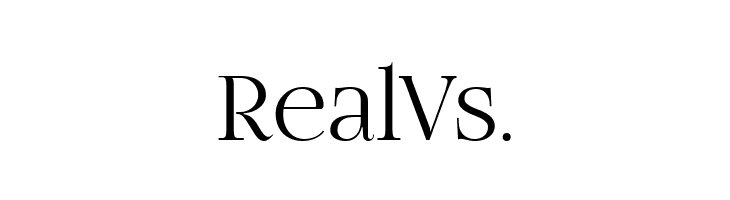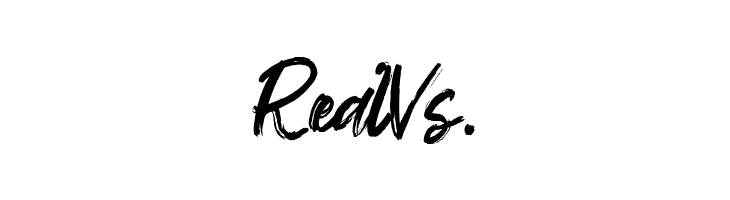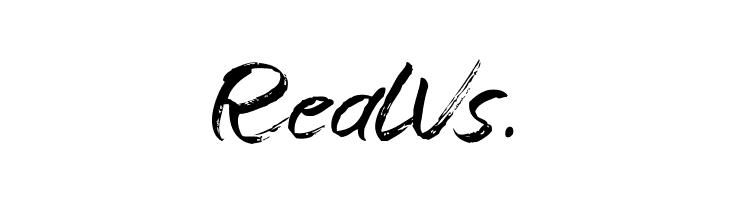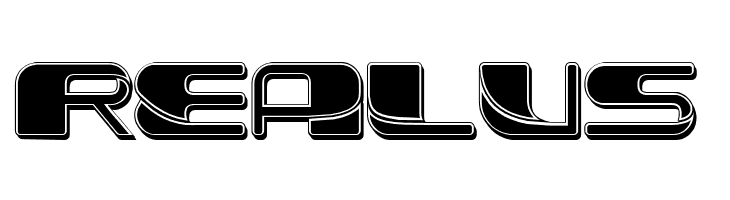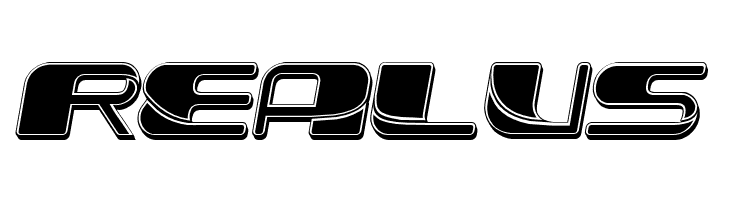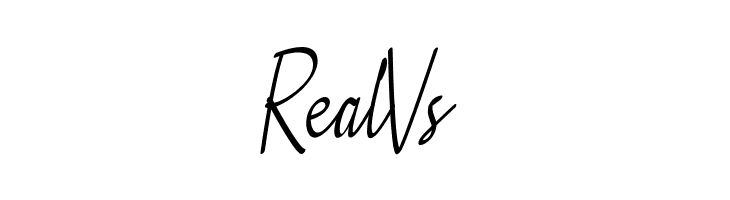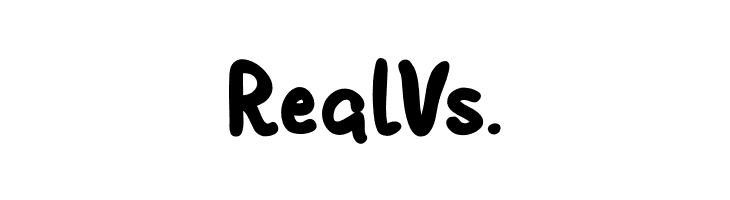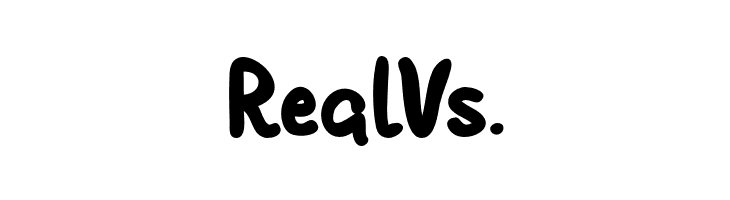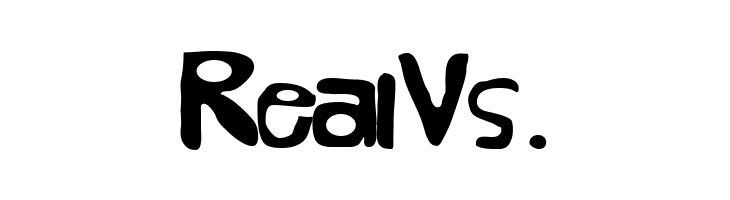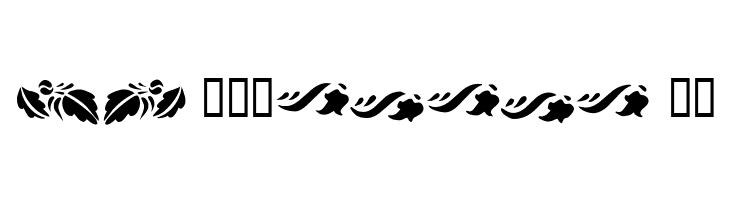
• FogtwoNo5
A refined serif font with high contrast and elegant curves.
• FogtwoNo5
• Folk Art
• Folk Art 2
• Folk Art Dividers
• Folköl
• Fombre
A bold, brush-style handwritten font with a lively and informal appearance.
• Fontabenka
An artistic font with sharp, angular strokes and dynamic flow, resembling calligraphic brushwork.
• FontCo Designs 1
• FontCo Designs 2
• FontCo Fences
• FontCo Flares
• Fontie
A playful, handwritten font with a casual and creative style.
• Fontix
A bold, brush-like font with an expressive, hand-painted style.
• Fontrue
A bold, brush-style font with dynamic, hand-painted strokes.
• Fontself
A playful, bold font with rounded edges and a hand-drawn style.
• Fontself
A bold, playful font with rounded, thick strokes and a whimsical style.
• FontselfRegular
A playful, bold handwritten font with smooth, rounded letterforms.
• Fonty_McFonterson
• Fonzella
An elegant, flowing script font with smooth, continuous strokes.
• Fopi Rush
A bold, dynamic font with angular cuts and a sense of motion.
• For Her By @fananmoch
A playful handwritten font with a casual and friendly style.
• for sara
A playful, handwritten font with a casual and friendly appearance.
• Forehead 1 Regular